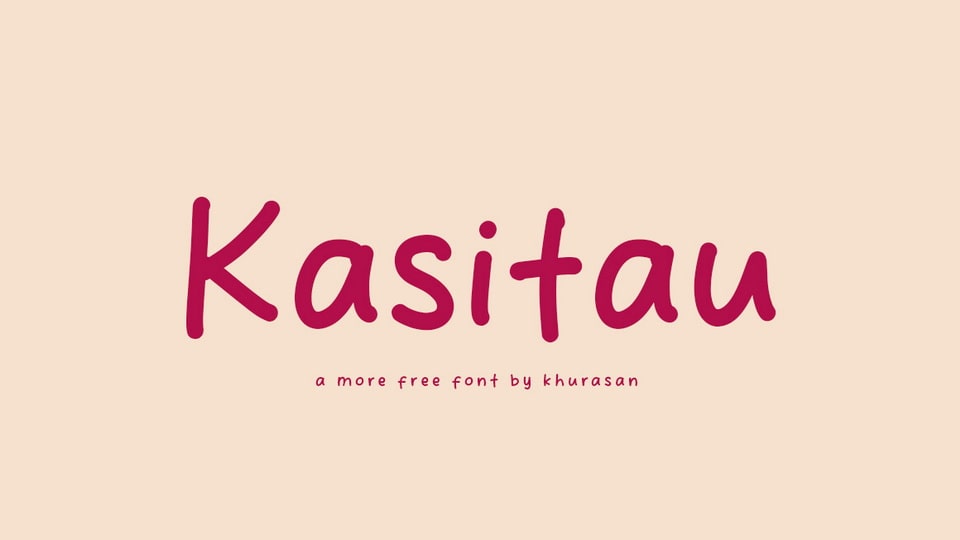
Download Kasitau font, a casual hand-drawn typeface that oozes with whimsy and character. Kasitau font is the perfect choice when you want to infuse your designs with a touch of comic book style.